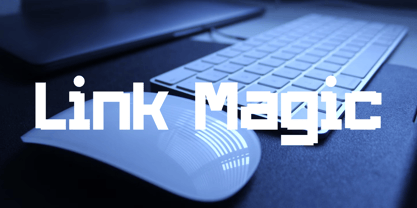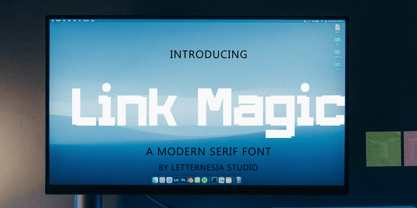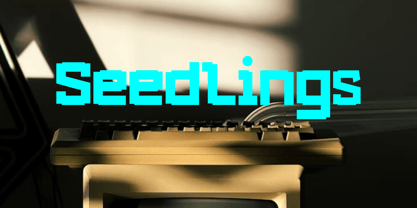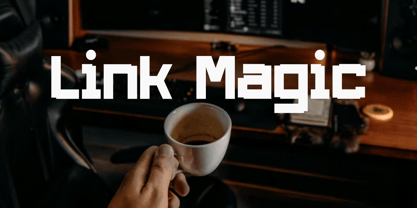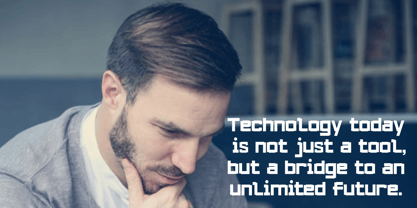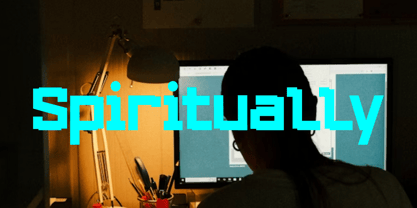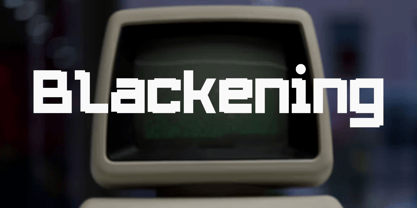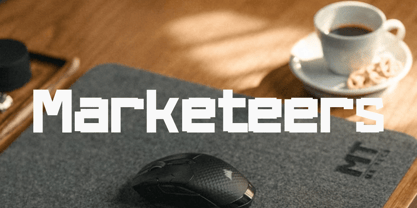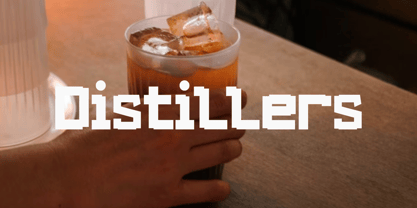
Link Magic
by Letternesia studio
The Link Magic Font Family was designed by Ta Siyo and published by Letternesia studio. Link Magic contains 1 styles. More about this family
Link Magic is a font that blends futuristic elements with a touch of magic in every curve of its letters. Designed with clean yet distinctive lines, this typeface offers a modern impression without losing its unique, captivating character. Perfect for logos, titles, game design, tech projects, or digital fantasy-themed works, Link Magic evokes a mysterious, elegant, and bold aesthetic. Each letter appears to be connected by an invisible force—creating a visually enchanting and harmonious flow.
Designers: Ta Siyo
Foundry: Letternesia studio